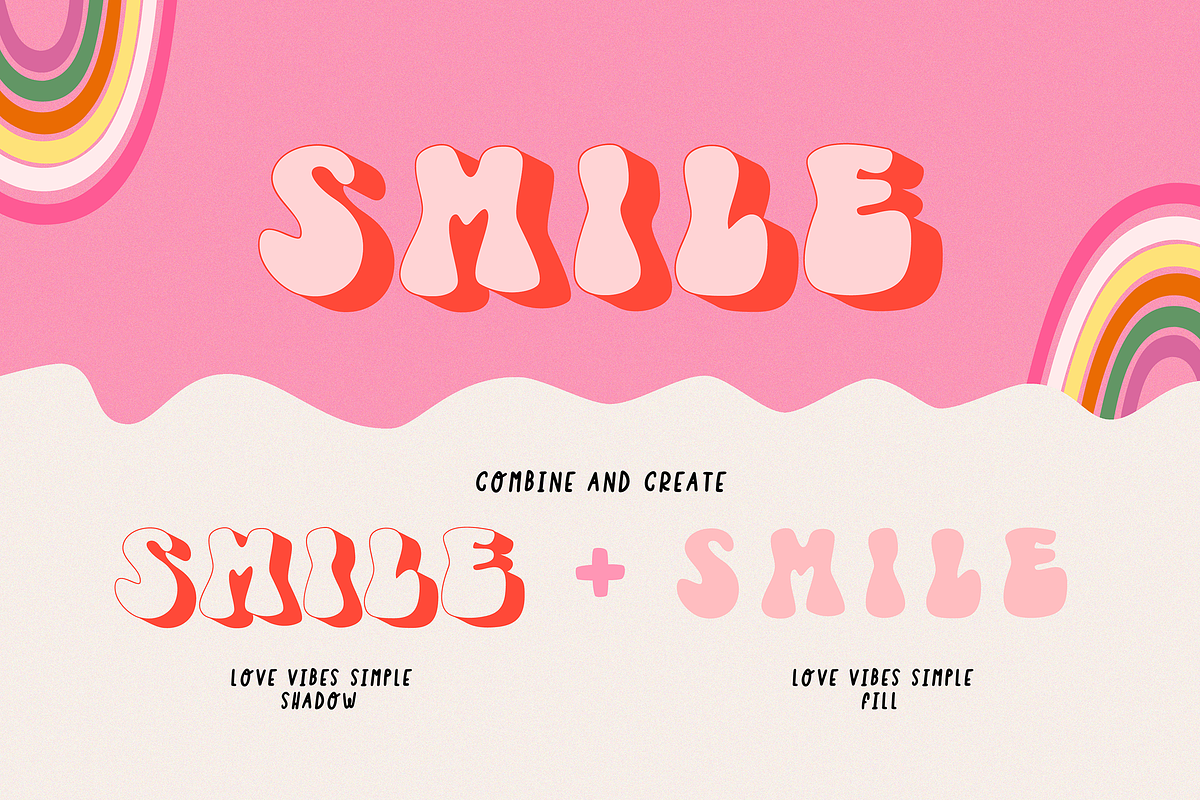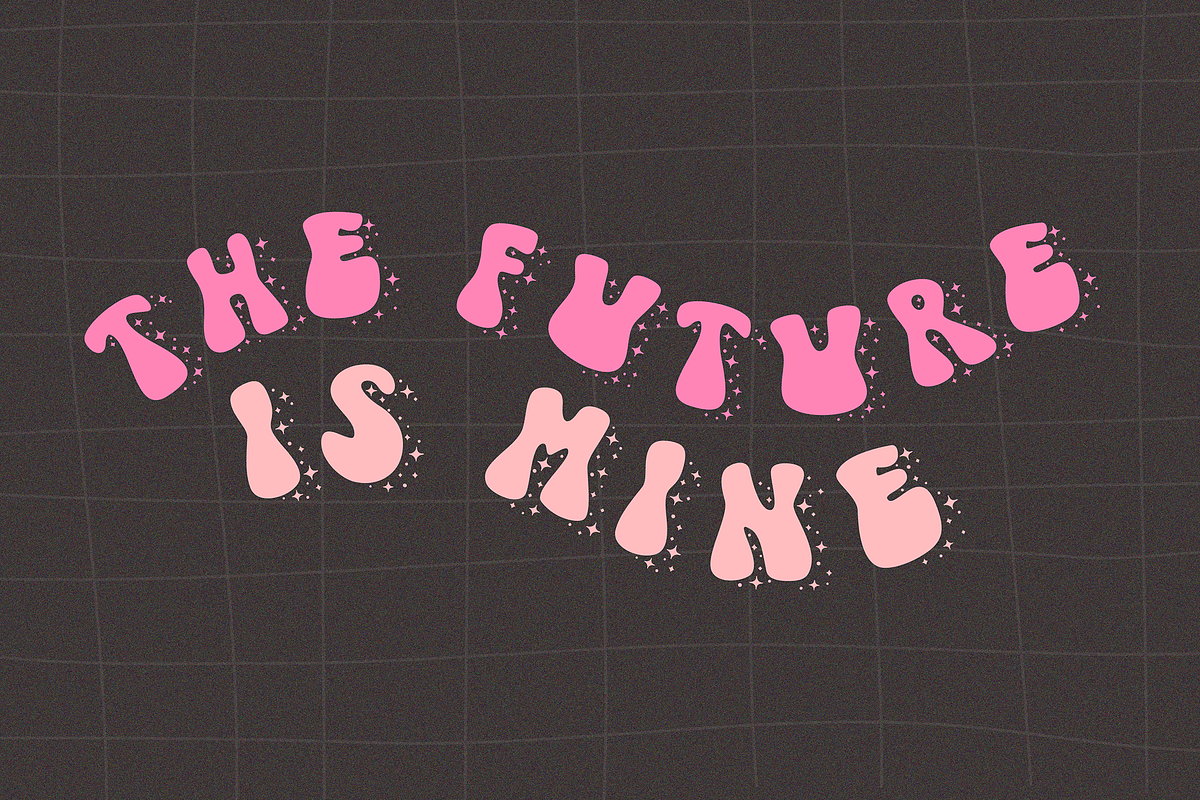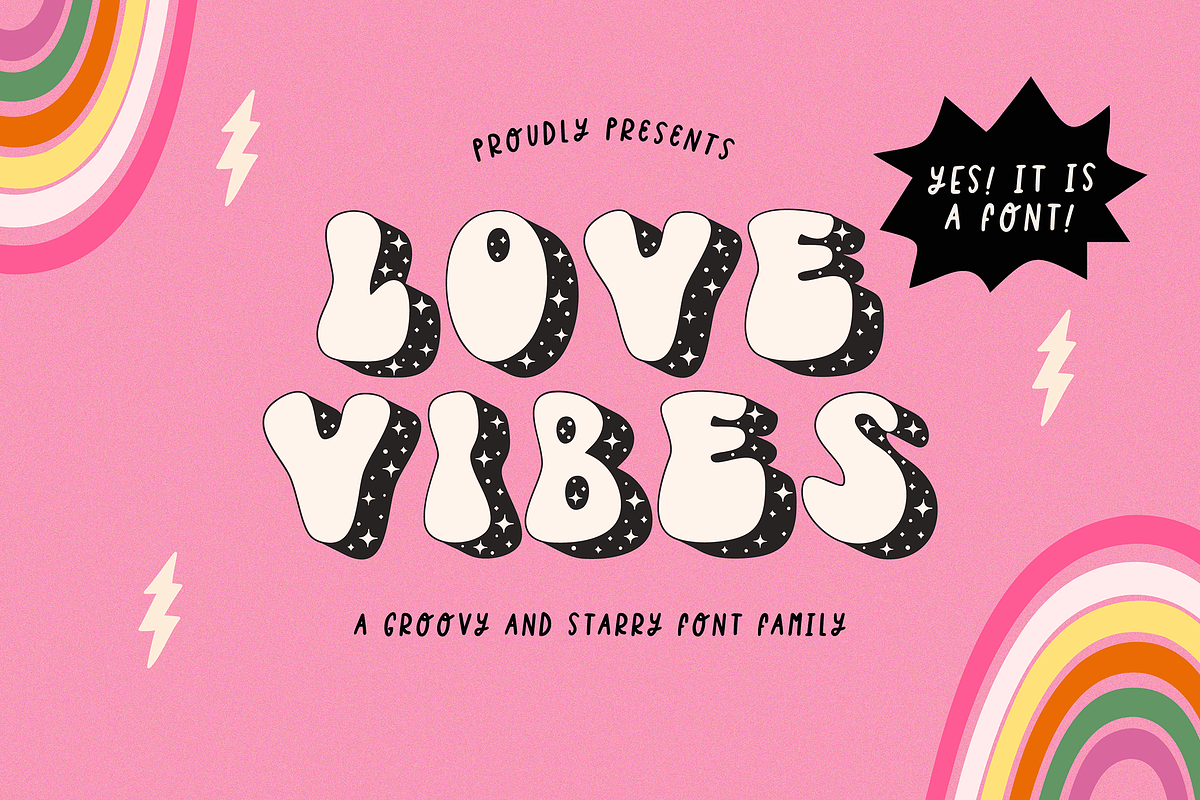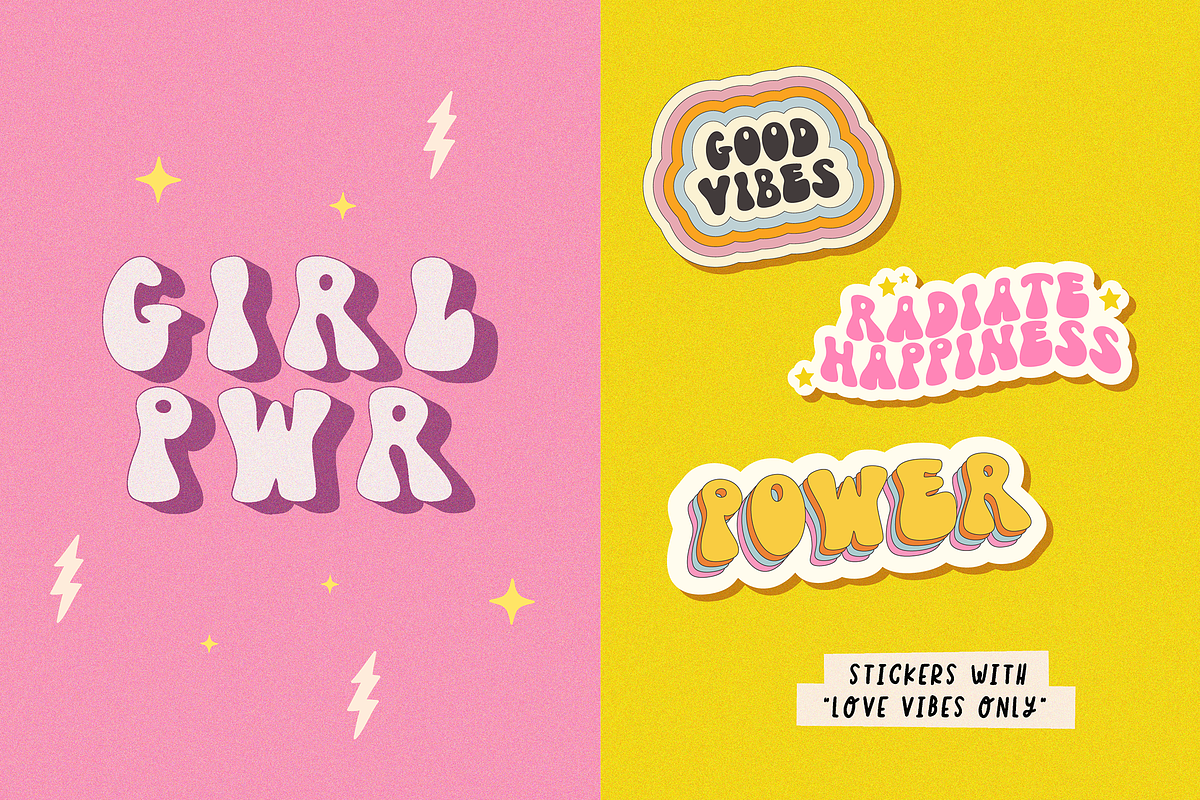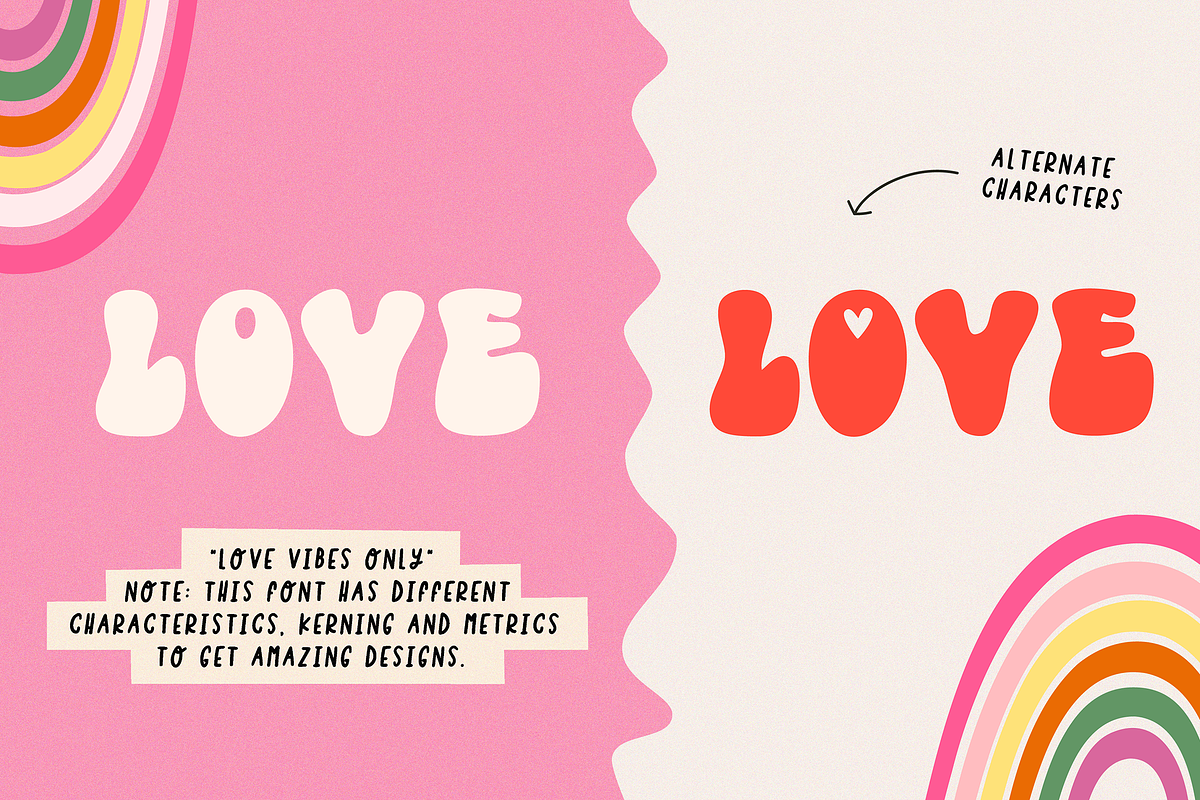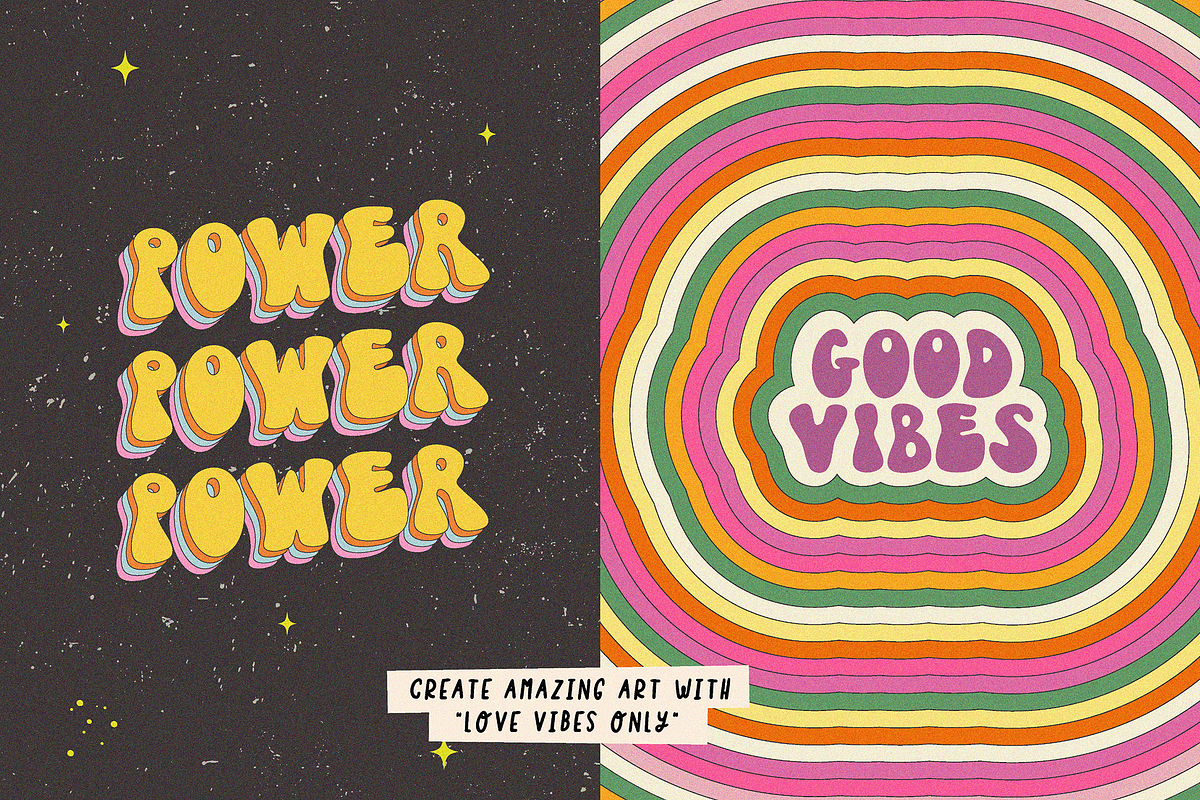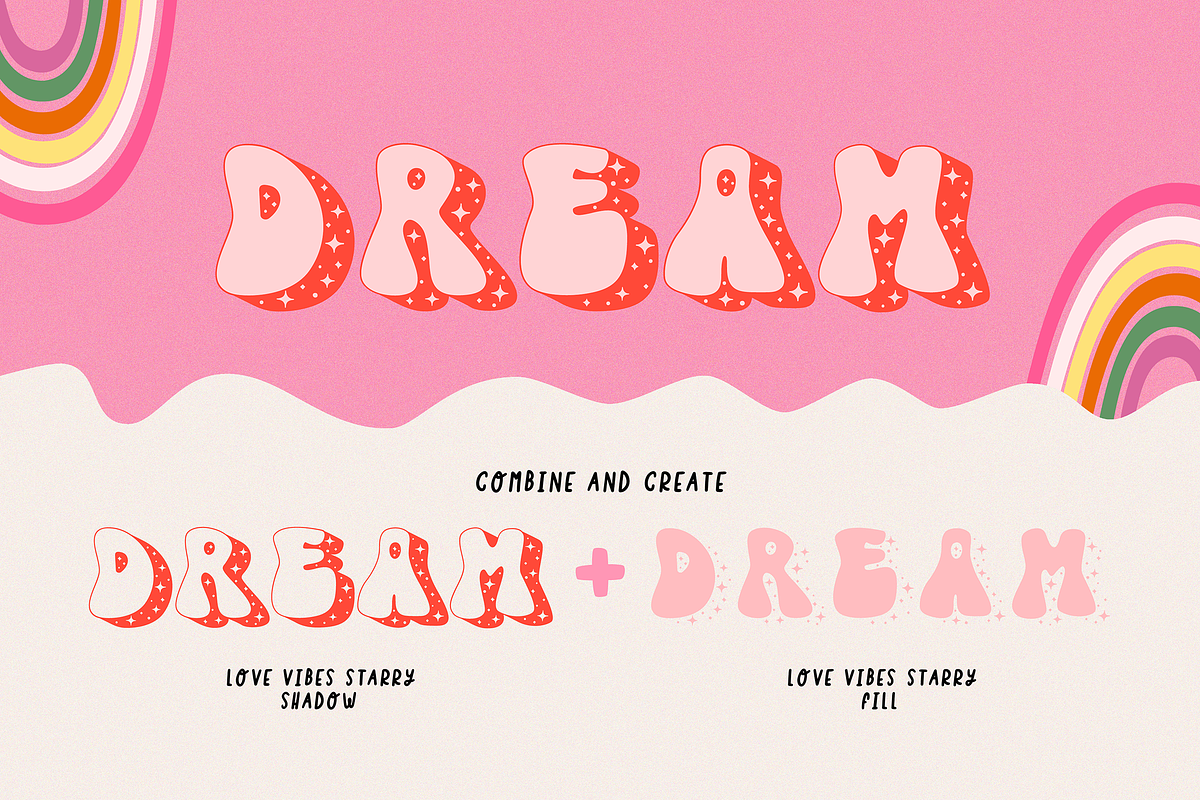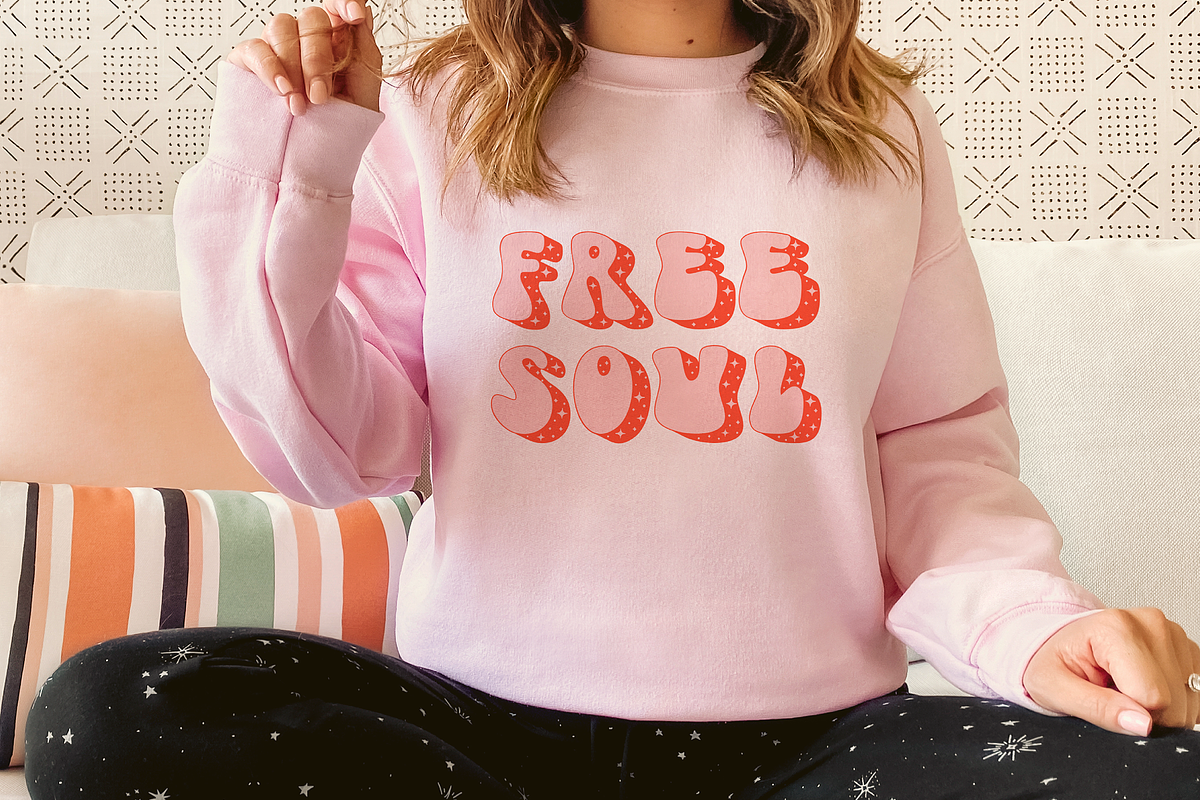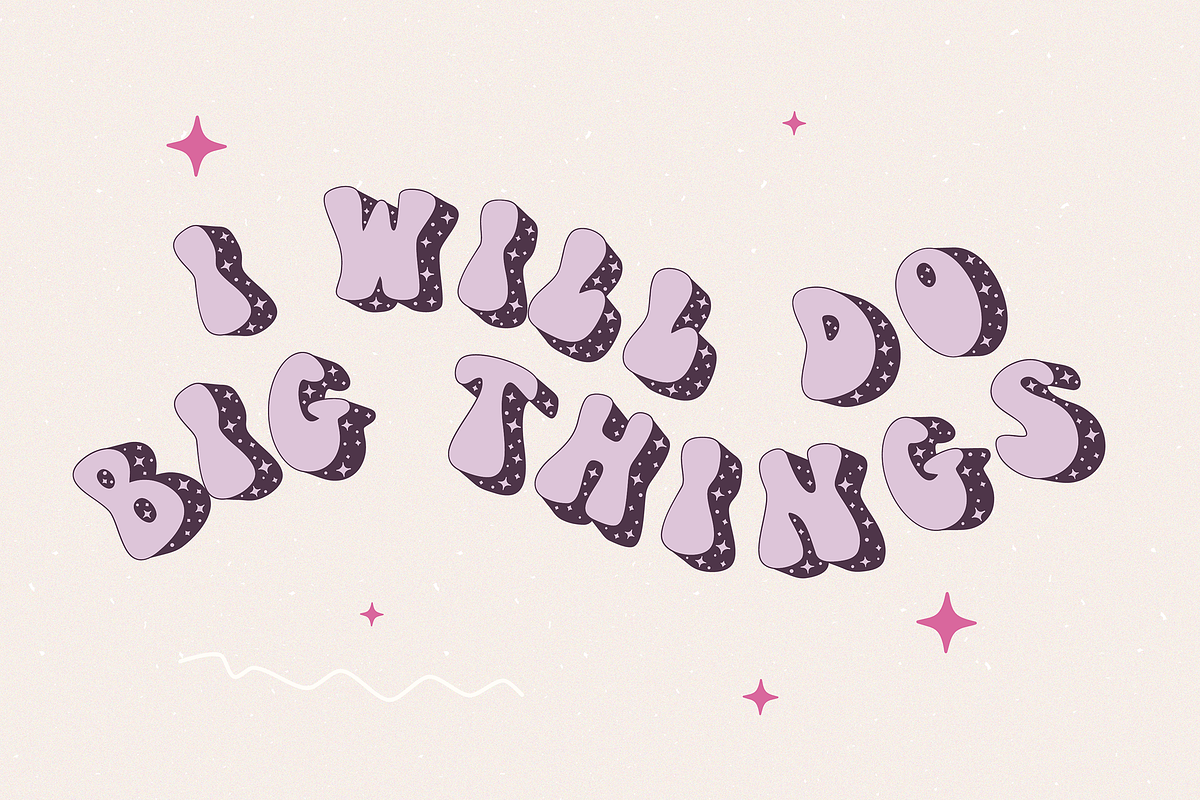
LOVE VIBES
LOVE VIBES is a groovy and starry font family.
This font family is perfect for all your designs, posters, social media quotes, products, branding, etc. It will add an incredibly happy and hippie touch to your designs. Enjoy and be creative!
☻ Use this family of layered fonts to create awesome quotes/text/products. You can use independently or combined (except for LOVE VIBES ONLY which is made/ designed to work independently)